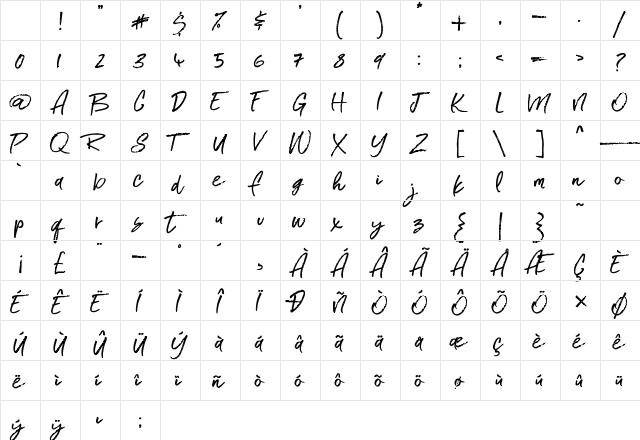
Serial Catch Black Regular Free Font
Serial Catch Black Regular
Design Context for Serial Catch Black
Serial Catch Black is a composed and adaptable typeface that performs quietly and consistently across a wide range of design contexts.
Pro Tip: Use Serial Catch Black in both headline and body roles to test its range before committing to a single application.